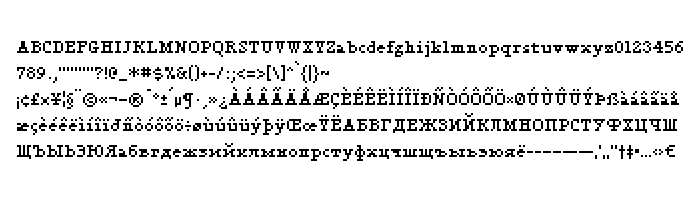
This is the smallest possible pixel serif font. Character set and sample text (in English and Russian). Caps height: 6px, x-height: 4px, ascenders and descenders 2-2px respectively, diacritical marks: 3px, Total vertical dimension: 11px. Letter width: 3-9px. Spacing: 1px. No kerning.
The magnified character set.